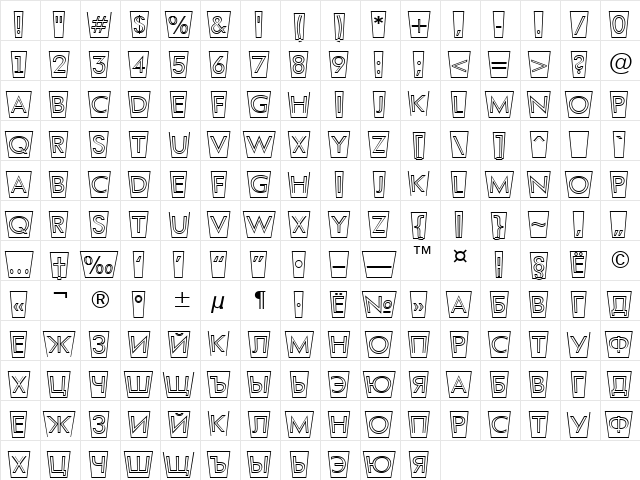
a_FuturaOrtoTtlCmSwOtl Regular
Design Context for a_FuturaOrtoTtlCmSwOtl Typeface
a_FuturaOrtoTtlCmSwOtl has a distinctly futuristic character, with geometric precision and clean angles that feel at home in technology, gaming, and sci-fi contexts.